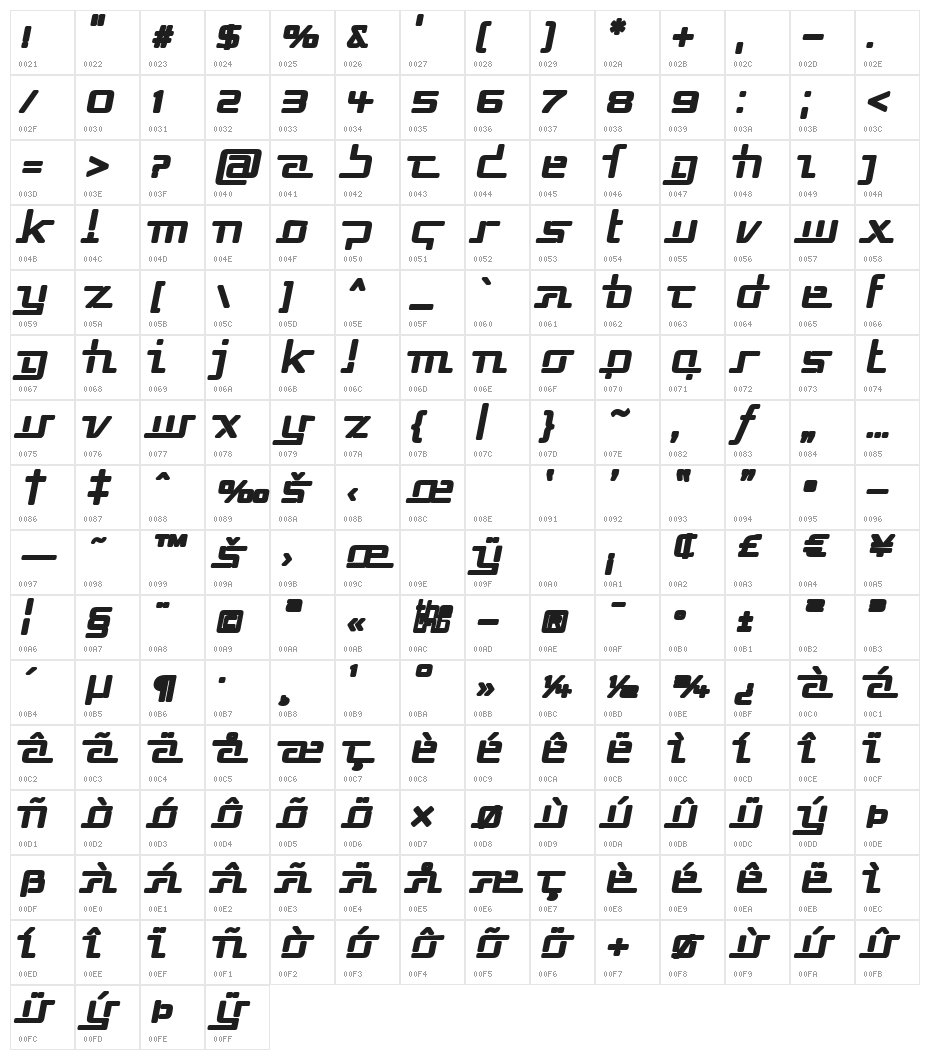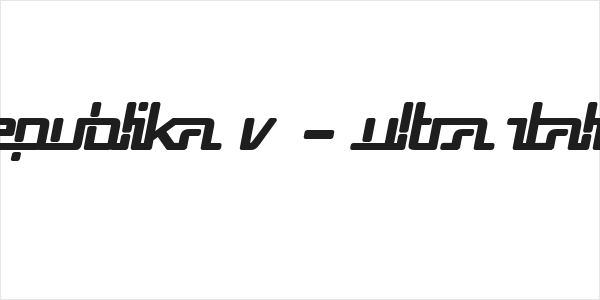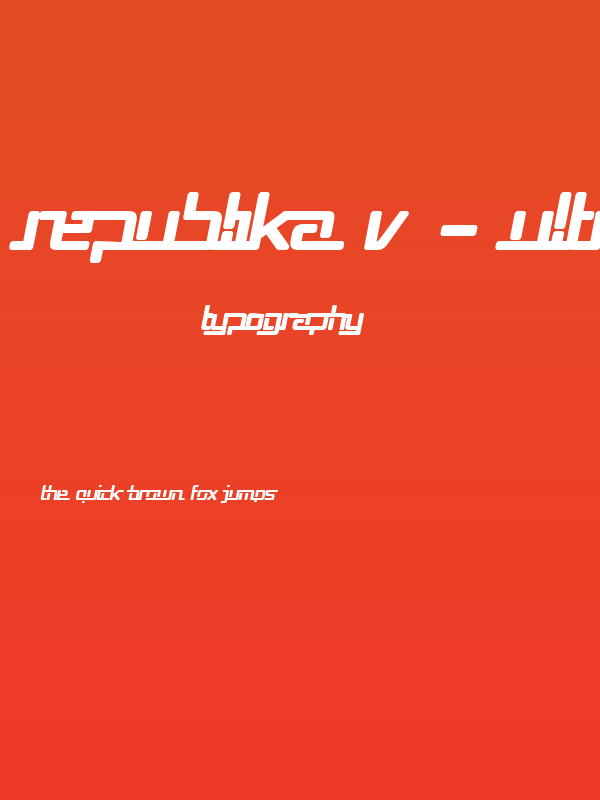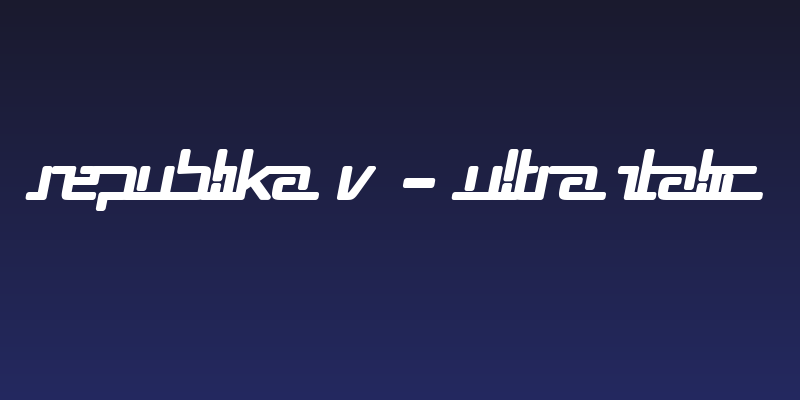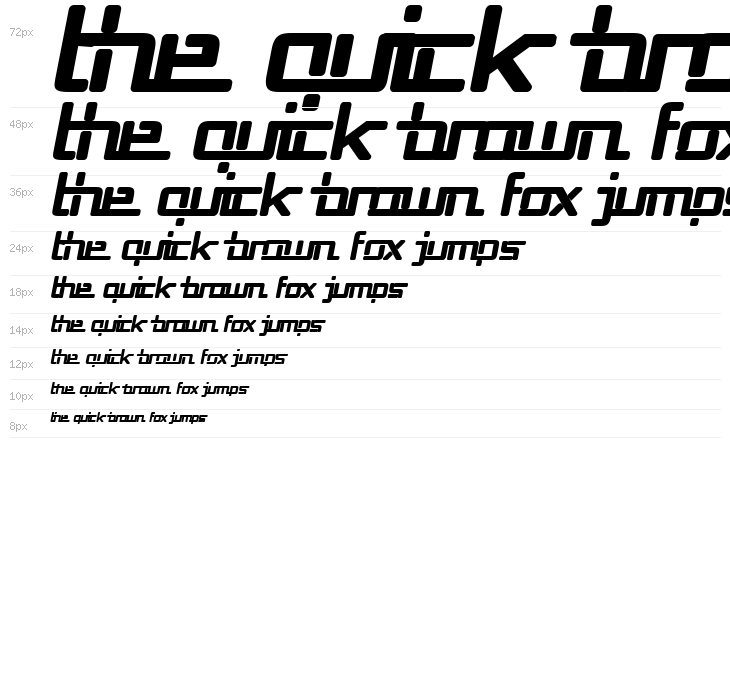
Republika V - Ultra Italic Font
Republika V - Ultra Italic Description
This font features a bold, italicized style with a futuristic and dynamic appearance. The characters are designed with a strong geometric influence, showcasing angular lines and sharp edges. The uppercase and lowercase letters maintain a consistent height, contributing to a uniform look. The numerals are equally bold and follow the same angular design, ensuring readability and impact. Special characters are included, matching the overall aesthetic with their distinctive shapes. This font's unique style makes it suitable for modern and tech-oriented projects, where a bold statement is desired.
| Proposed Projects | Ideal for tech branding, futuristic posters, video game titles, and digital interfaces. |